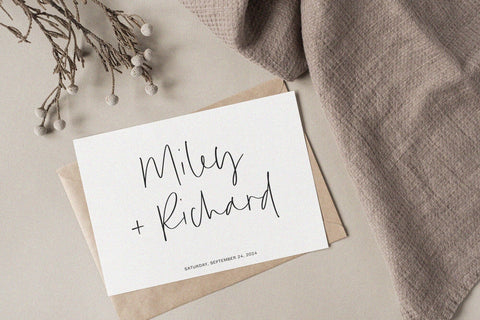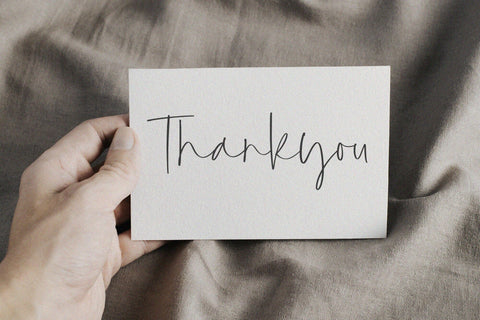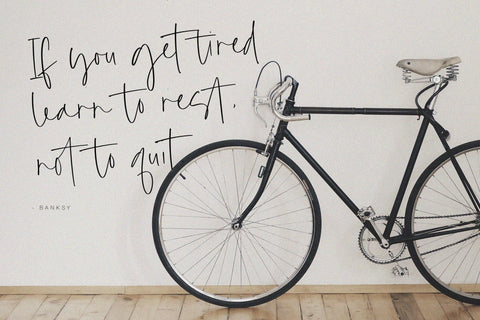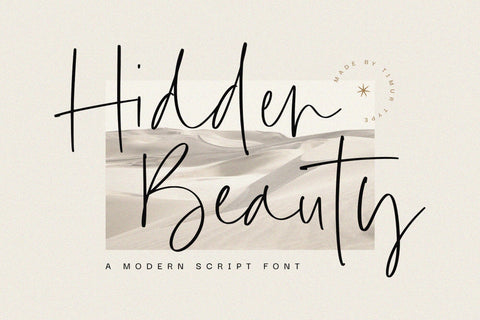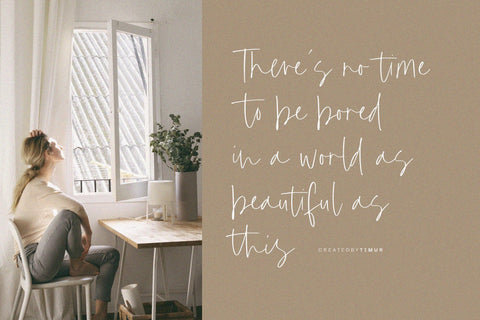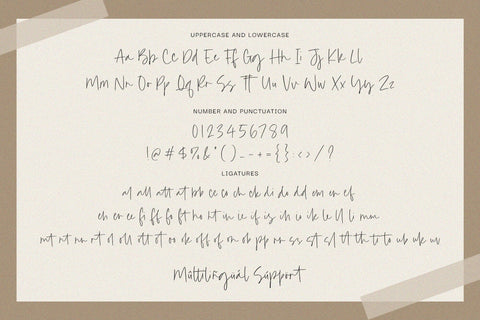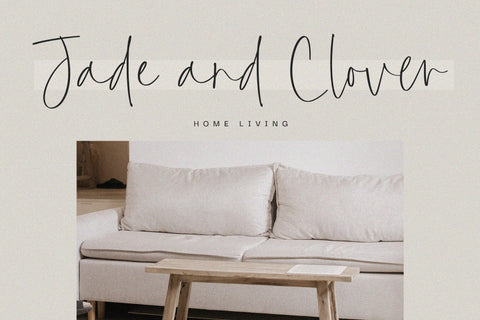
Hidden Beauty - Modern Script font
Introducing by Timur type
Proudly Present, Hidden Beauty
Hidden Beauty - Modern Script Font, which was created with great care and specially created for you .
Hidden Beauty is best for:
- logos, branding, & Signatures.
- Flyers, Album cover, Magazine, & Advertisements.
- Website design , design blogs, & fashion.
- Quote graphics for social media.
- and also it works great for other projects.
- Character Set
- Numerals and Punctuation (OpenType Standard)
- Accents (Multilingual characters)
- Ligature & Swash